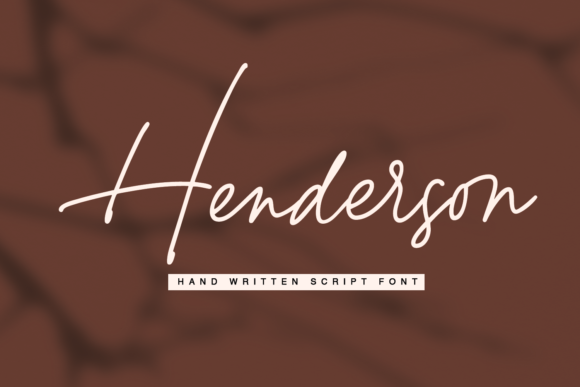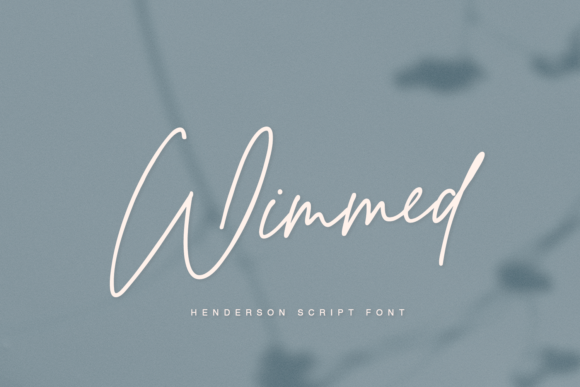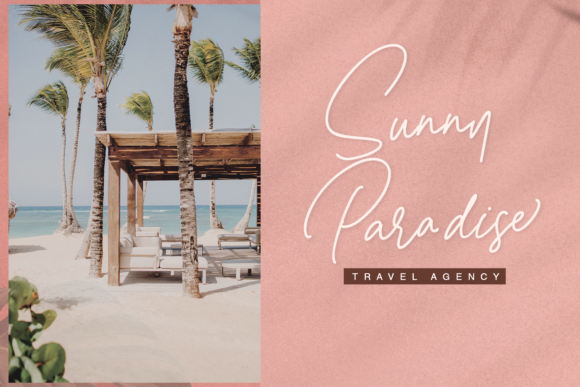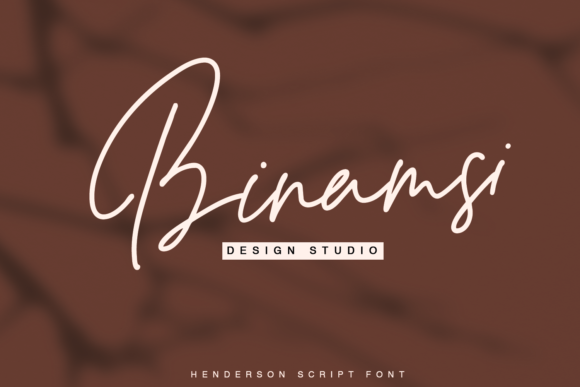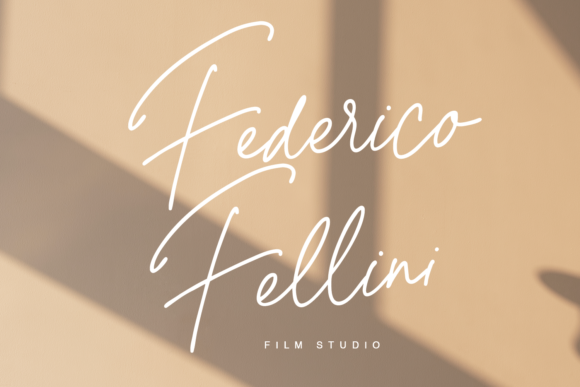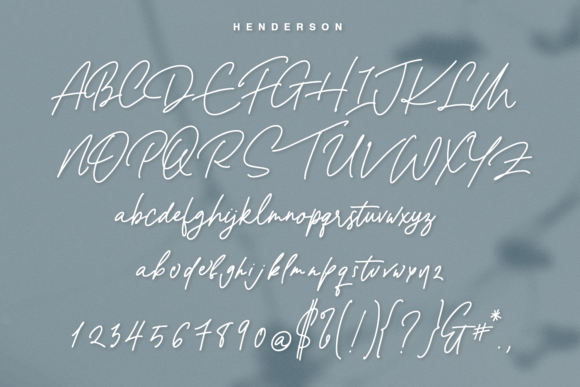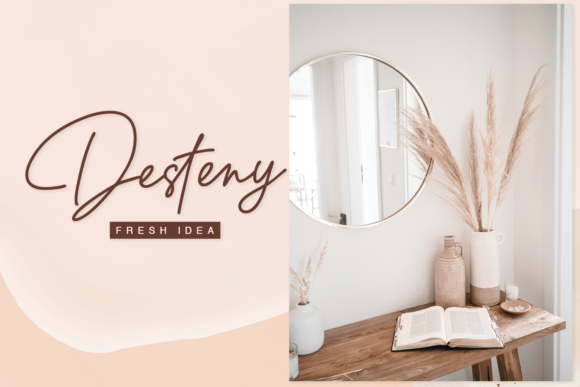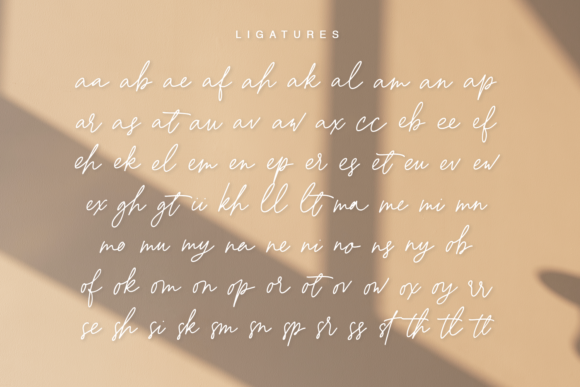
Henderson Script Font
About Henderson Script Font
Henderson Script is a sleek and sophisticated script font that exudes style and elegance. With its thin letterforms, this font is an ideal choice for a variety of branding projects, ranging from logos and t-shirt designs to creative products and more.
The font’s stylish and modern appearance makes it a versatile option for different design contexts. Whether you’re aiming for a refined and minimalist look or a chic and contemporary vibe, Henderson Script adapts seamlessly to your creative vision.
One of the font’s strengths is its ability to convey a sense of sophistication and professionalism. When used in logos, Henderson Script adds an air of elegance, making your brand stand out with its sleek and tailored design. The thin lettered style gives the logo a distinctive touch, contributing to a memorable and lasting impression on your audience.
Henderson Script is also an excellent choice for t-shirt printing. Its thin letterforms create a subtle yet impactful look that enhances the visual appeal of apparel designs. Whether you’re designing for a fashion brand, an event, or a special occasion, this font lends a touch of class to the final product.
When applied to creative products, Henderson Script injects a sense of creativity and elegance. Whether it’s on product packaging, labels, or promotional materials, the font’s sleek lines and delicate curves add a refined touch that elevates the overall presentation.
In addition to branding and product-related projects, Henderson Script can also be used in various design applications. It works well for social media graphics, website headers, and marketing materials, bringing a sense of modern sophistication to your visual content.
The thin lettered style of Henderson Script provides a harmonious balance between elegance and legibility. It captures attention without overpowering the message, making it suitable for conveying important information while maintaining a high level of visual appeal.
Overall, Henderson Script is a stylish and versatile font that suits a wide range of design projects. Its thin lettered aesthetic adds a touch of refinement and modernity to any composition, making it an excellent choice for branding, t-shirt design, creative products, and beyond.